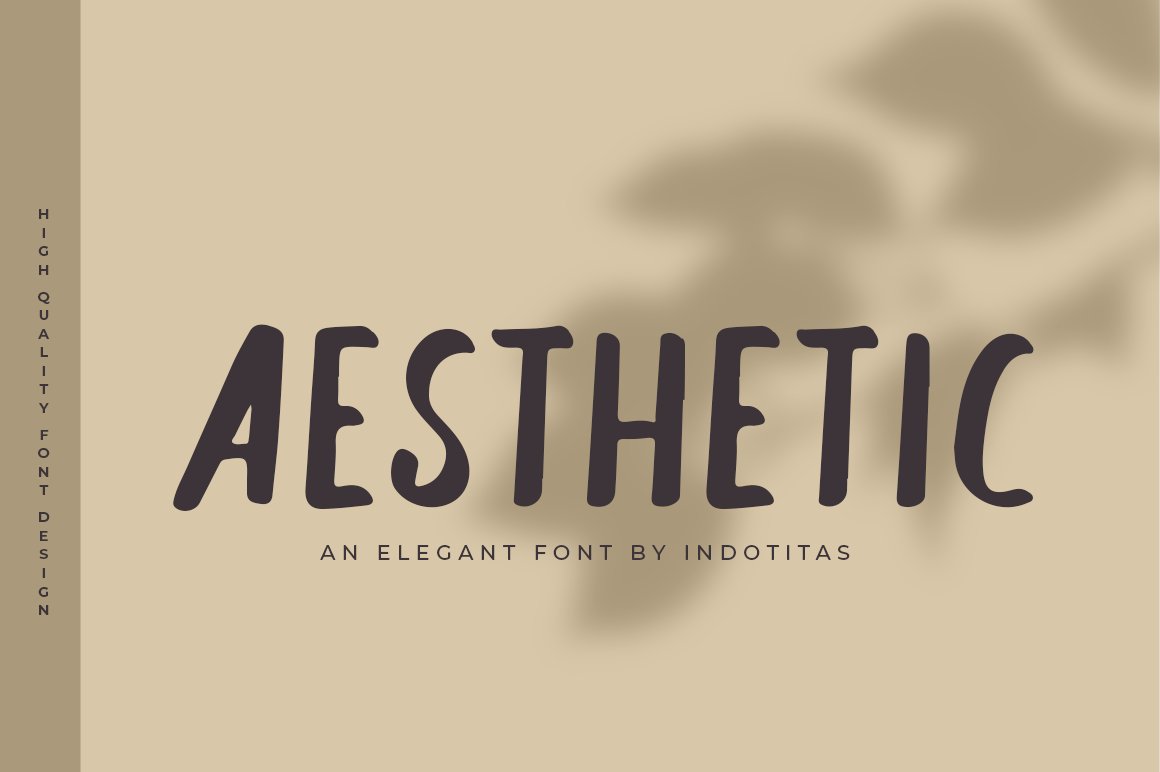
+23 Aesthetic Fonts Website Ideas
+23 Aesthetic Fonts Website Ideas. This is one of the best websites you will see on the internet to generate these aesthetic fonts. Playfair display is a serif font with an elegant, modern quality that features undertones of femininity.
Simply copy & paste text. Aesthetic fonts are the most beautiful fonts on fontgenerator.org as the word aesthetic means concerned with beauty, we are inspired to make it the most attractive font style. Ini font aesthetic generator digunakan untuk membuat font keren, π ½π °π Όπ ° π ΅π ΅ π Ίπ ΄ππ ΄π ½ dan font bergaya untuk instagram dengan banyak koleksi gaya font fancy, stylish, cute.
Alat Pengubah Font Normal Menjadi Font Aesthetic.
Your facebook, tiktok, instagram, twitter can be transformed with an aesthetic text converter. The field of use of the aesthetic font is very diverse: Where to use such aesthetic fonts?
This Aesthetic Website Features A Blend Of Multiple Bold Colors On Each Page And Visually Appealing Fonts.
Aesthetic fonts generator(font generator) is the most advanced online free tool to generate cool text fonts with various combinations of aesthetic. Kumpulan font canva aesthetic (font pack zip) jika kamu butuh font dalam jumlah banyak, berikut ini kamu bisa download font pack ttf dan otf yang bisa digunakan. In this article, i have listed the 45 best aesthetic fonts to choose from today.
This Font Is The Perfect Choice For Websites With A.
Aesthetic fonts generator is an online tool that allows users to generate fonts according to the desired parameters. Roniolk is a modern chic font with visual elegance, smooth curves,. With just a few clicks of the mouse, you can design your font by adjusting.
Here You Will Get Almost All Kinds Of Aesthetic Symbols &.
You can use this app. Aesthetic fonts | collection | fontspace. Ini font aesthetic generator digunakan untuk membuat font keren, π ½π °π Όπ ° π ΅π ΅ π Ίπ ΄ππ ΄π ½ dan font bergaya untuk instagram dengan banyak koleksi gaya font fancy, stylish, cute.